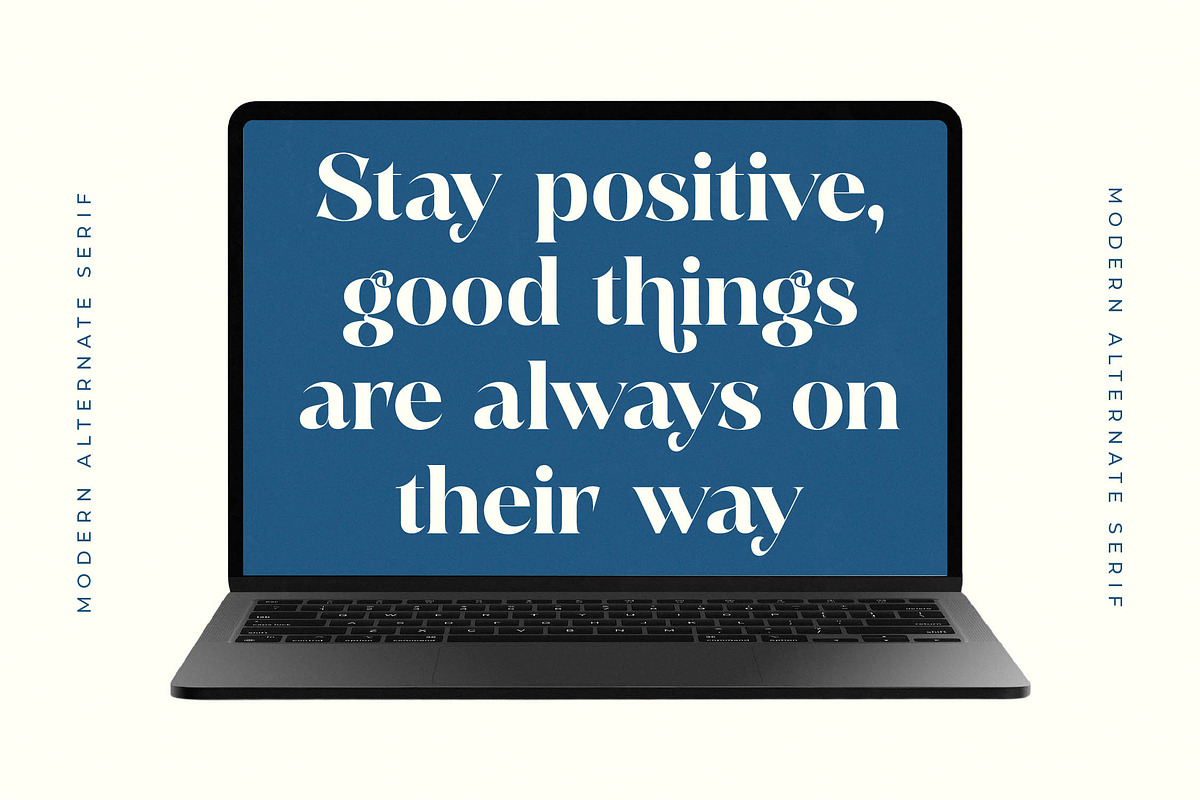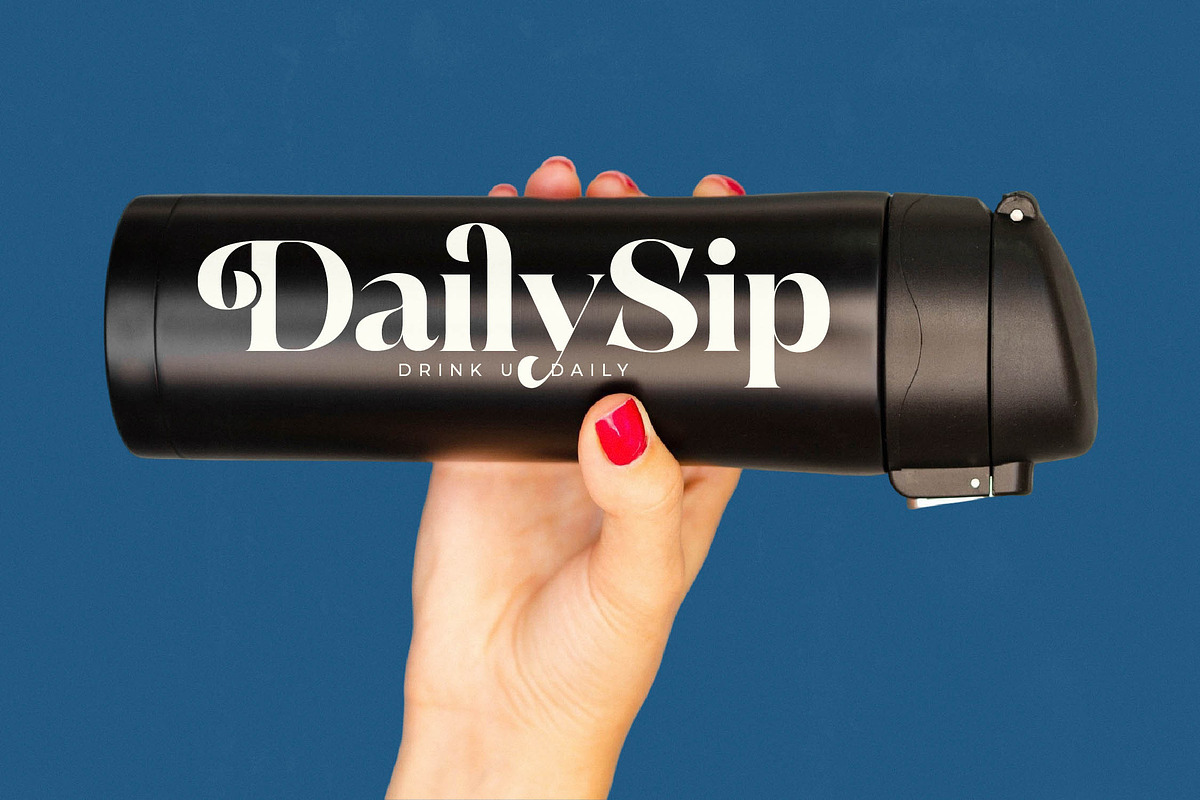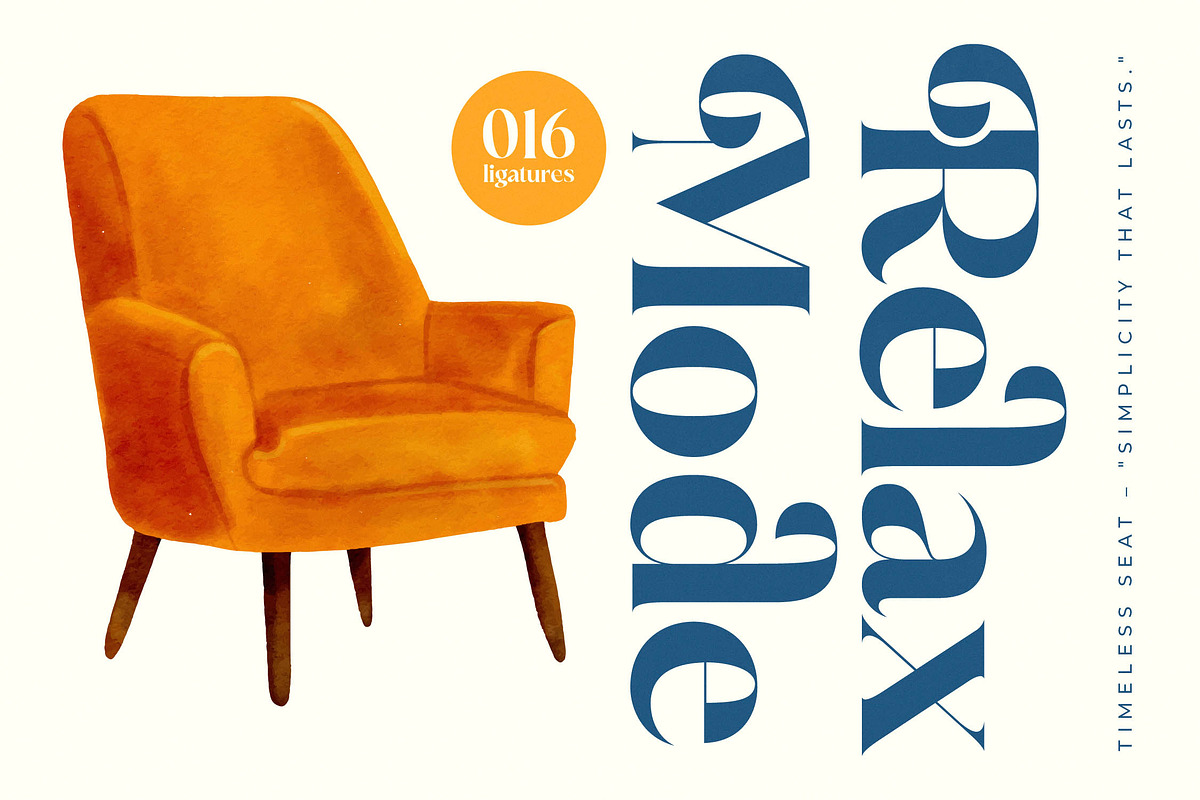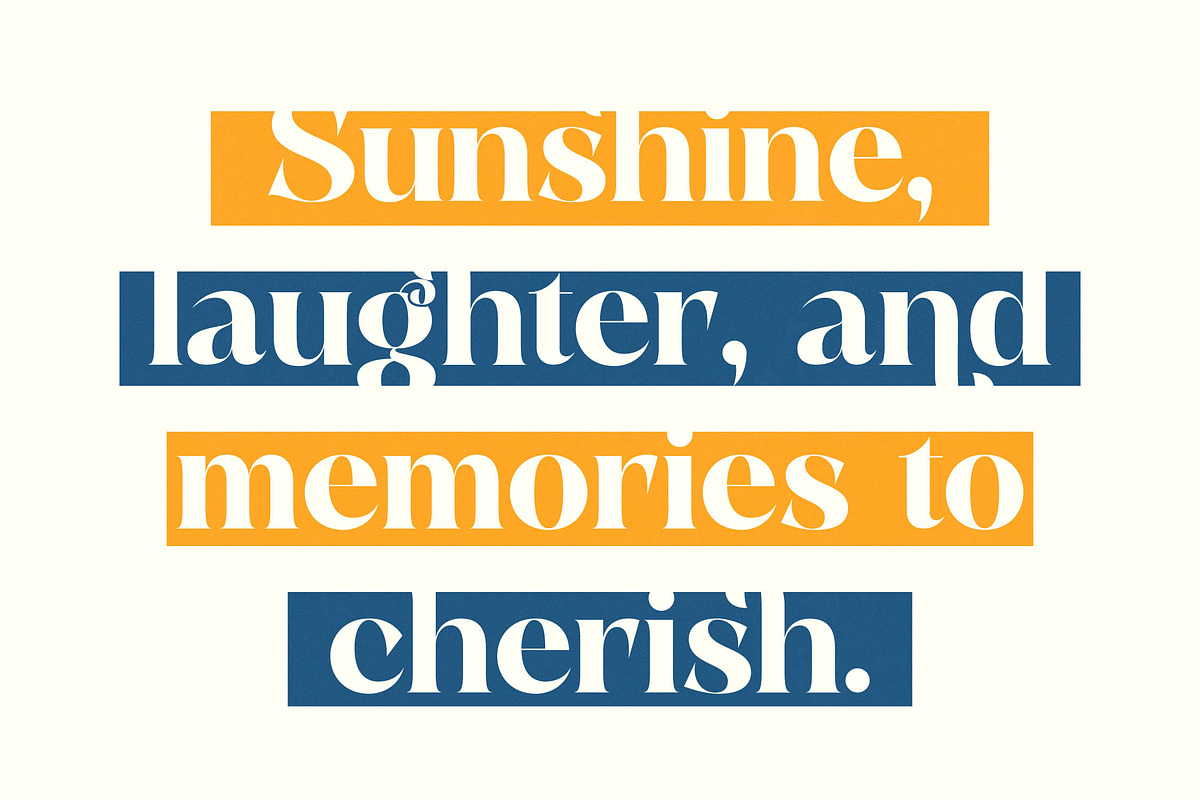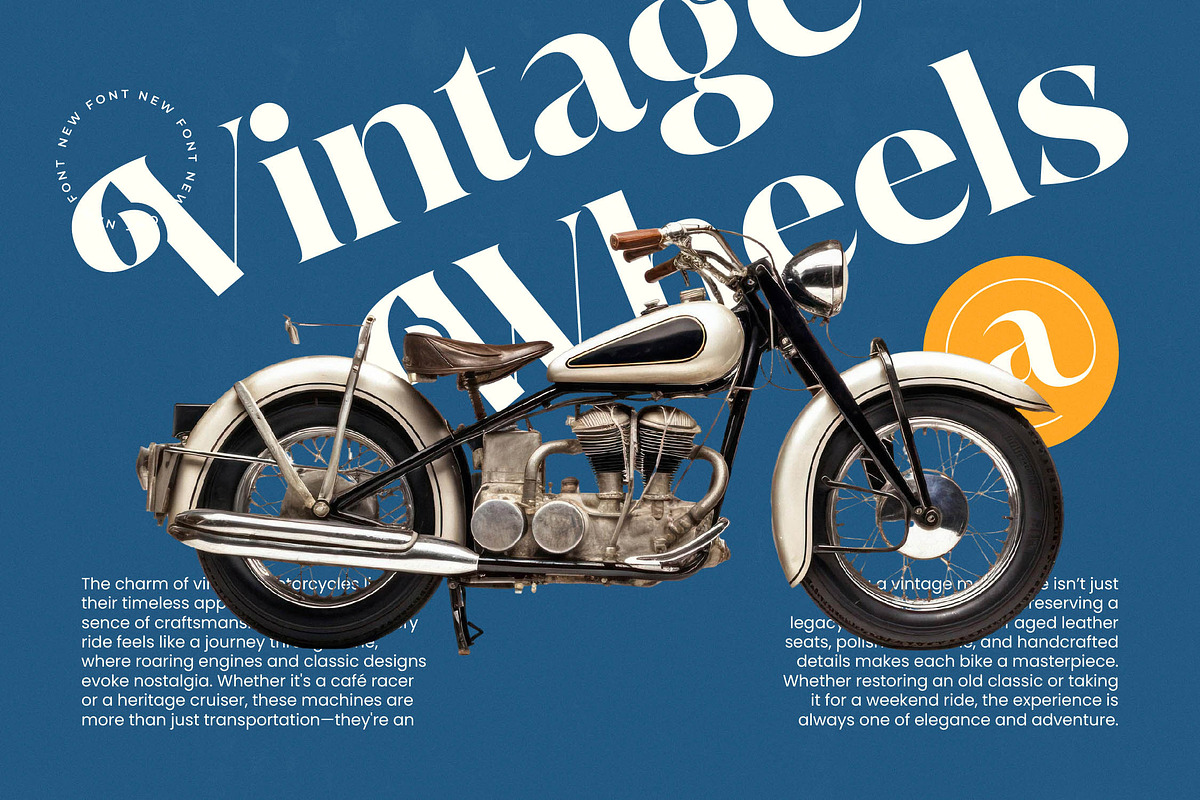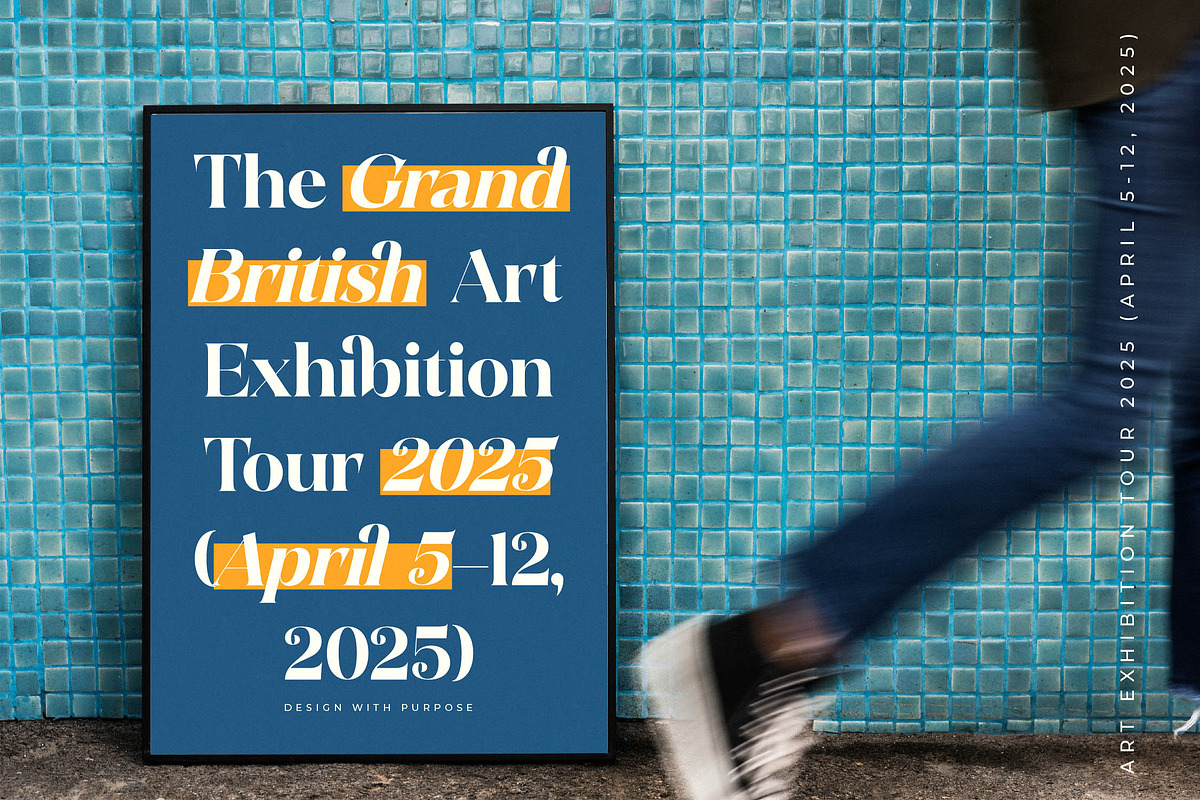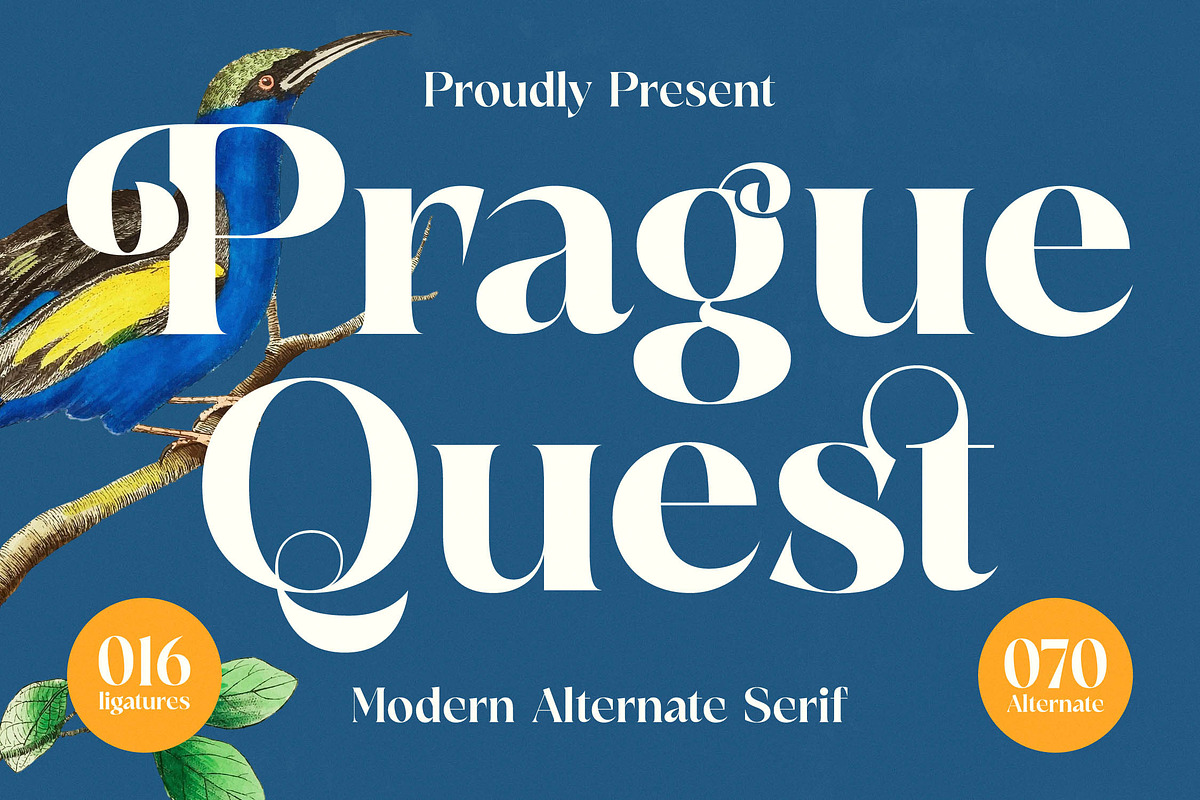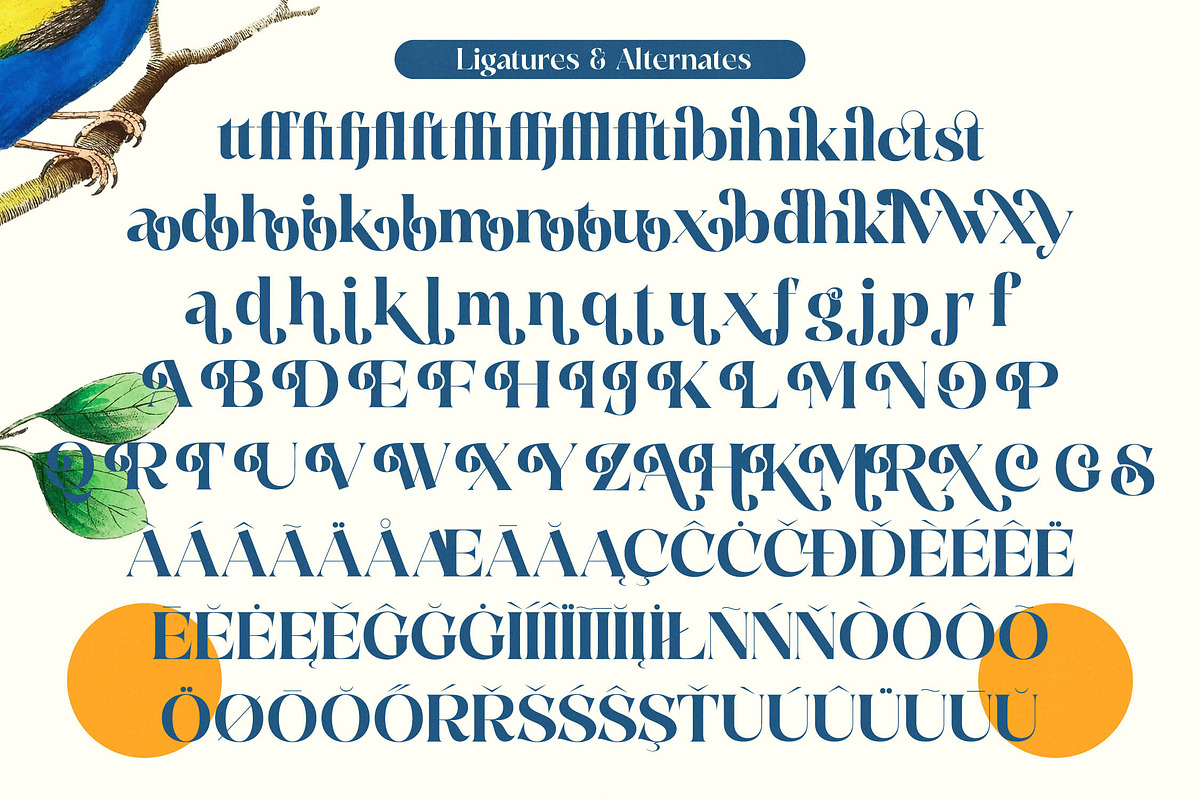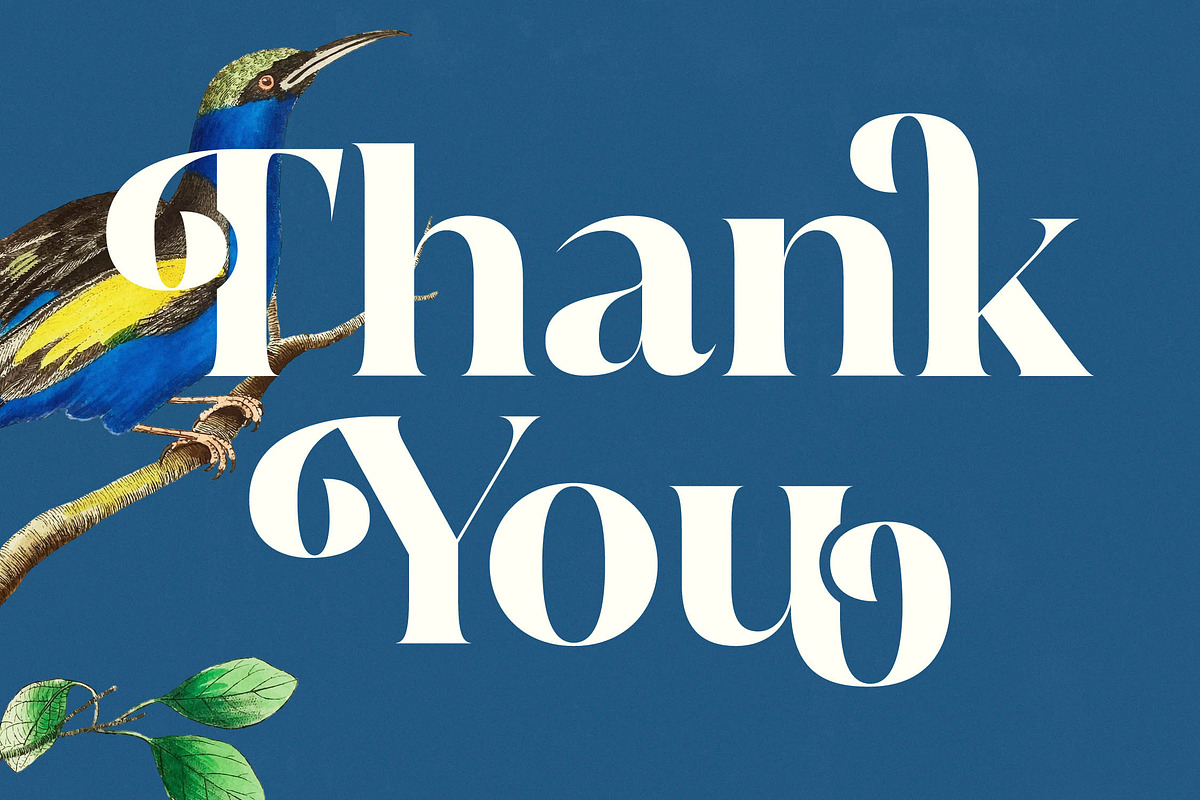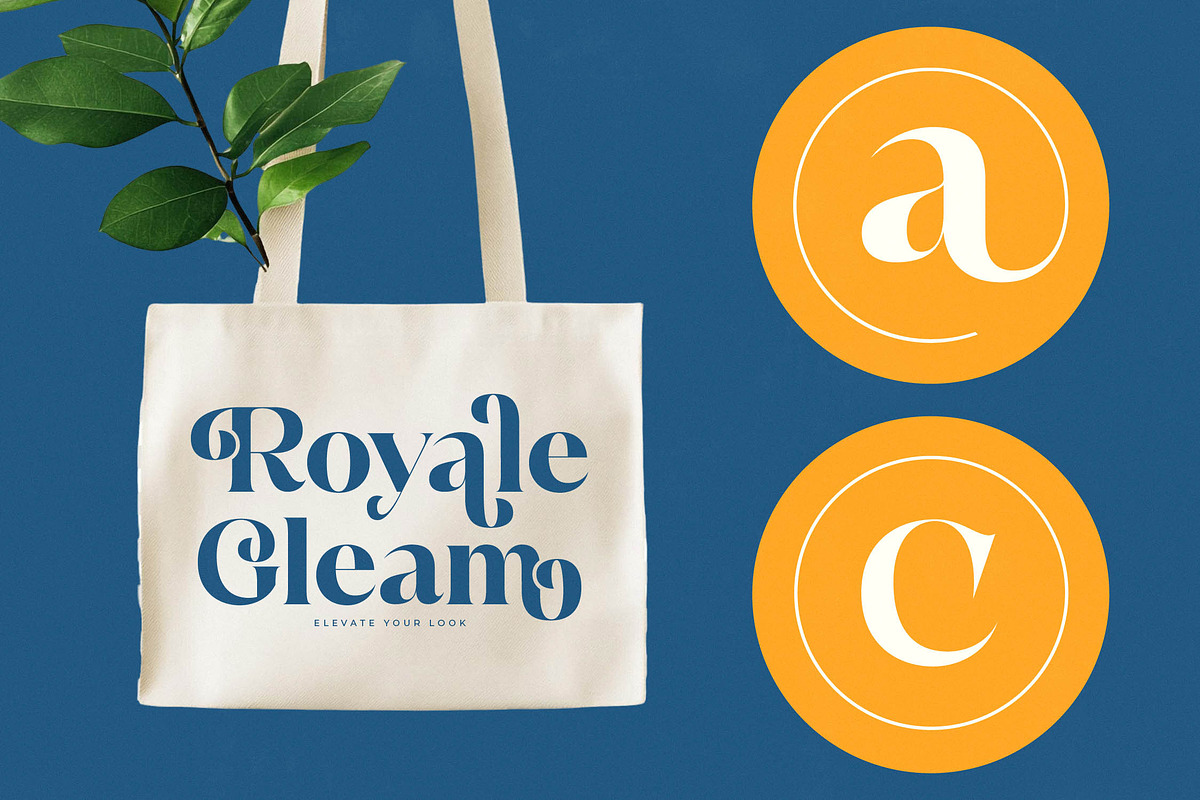
Prague Quest Modern Serif Font
Experience the perfect blend of timeless elegance and contemporary flair with Prague Quest, a typeface designed to elevate your creative vision to new heights. This font captures the essence of sophisticated storytelling through every meticulously crafted curve and graceful line.
Inspired by the ornate details of classical architecture and the organic beauty found in botanical illustrations, this typeface carries an atmosphere of refined discovery. It bridges the gap between old-world charm and cutting-edge aesthetic sensibilities, making it a true centerpiece for any high-concept project.
With its striking modern serif display and undeniable luxury typography appeal, this high-contrast serif is engineered for maximum branding impact. It functions as an editorial font that speaks with authority while maintaining a graceful, artistic silhouette that demands attention on every page.
Aligning perfectly with the current modern serif trend, this typeface meets the rising demand for editorial display fonts that offer more than just standard characters. Its focus on character-driven typography allows designers to create custom-feeling layouts that resonate with a high-end, contemporary audience seeking uniqueness.
This versatile typeface is the ideal choice for high-stakes logo design, comprehensive branding systems, and high-end editorial layouts. Whether you are working on premium packaging, bespoke wedding invitations, or avant-garde fashion lookbooks, it provides the sophisticated edge needed for commercial success.
This font family is packed with artistic potential, featuring a vast collection of unique ligatures and creative alternates that allow for endless customization of your text. It also includes comprehensive multilingual support and a wide range of international characters to ensure your designs have a truly global and inclusive reach.
- Ligature 016 Alternate 070